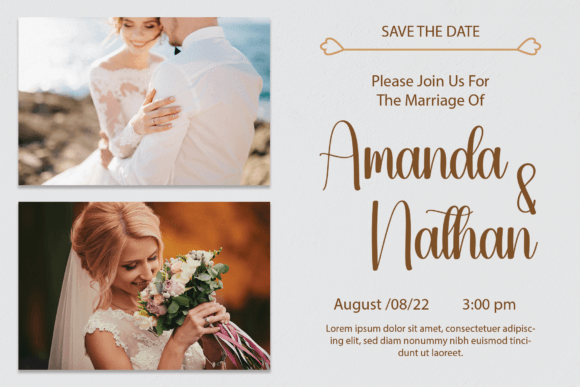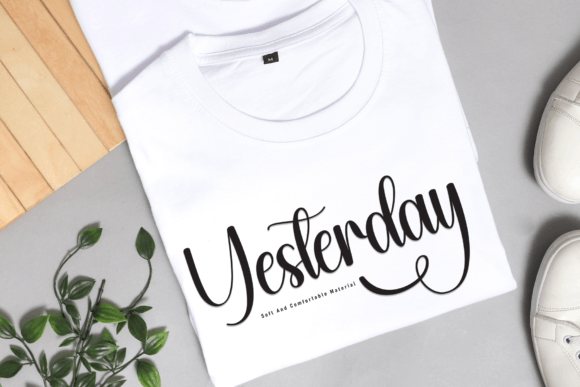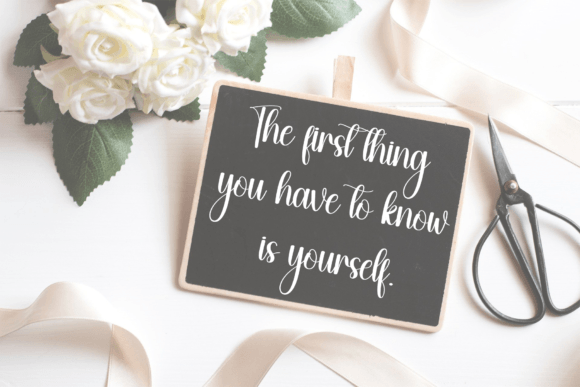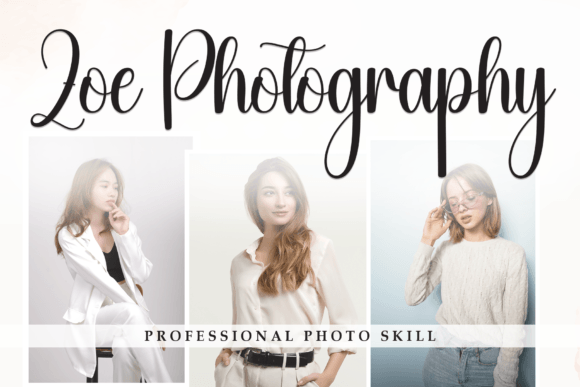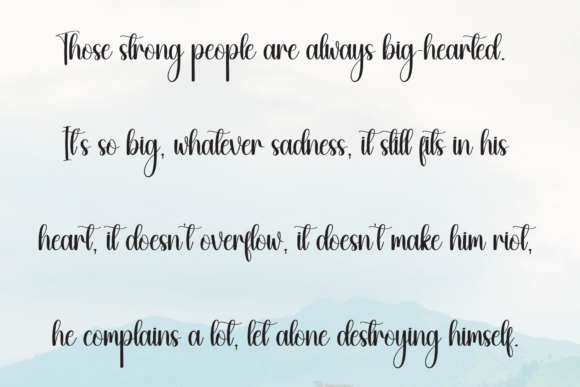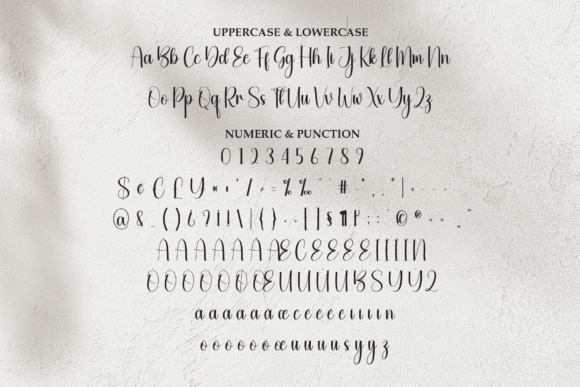
The Elusive Perfect Font: My Journey with “Enough”
I’ll never forget the frustration of working on a project, hours pouring over design elements, only to hit a roadblock: the perfect font. It was for a wedding invitation, and I wanted something that exuded elegance and simplicity. I scoured font libraries, tried out dozens of options, but nothing seemed quite right. That was until I stumbled upon “Enough”, a beautifully crafted handwritten font that checked all my boxes. In this article, I’ll share my experience with “Enough”, its features, and how to make the most of it in your designs.
First Impressions: What I Love About “Enough”
“Enough” is a gracefully crafted handwritten font that exudes sophistication and simplicity. Here are some of the things that make it stand out:
- ✨ Fluid strokes and delicate curves that add a touch of elegance to any project
- ✅ PUA encoded for easy access to amazing glyphs and ligatures
- 💫 Perfect for invitations, cards, or any design where a personal and refined touch is desired
- 🎨 Highly versatile and can be used for a wide range of creative projects
The Honest Review: Quirks and Limitations
While “Enough” is an exceptional font, there are a few quirks to be aware of:
- 🤔 Limited availability of certain characters, which may require some creative workarounds
- ⚠️ Not suitable for body text or long-form reading due to its elegant, yet delicate nature
The Story Behind “Enough”
While the origins of “Enough” are shrouded in mystery, it’s clear that the designer poured their heart and soul into crafting this beautiful font. Perhaps the designer was inspired by the fluid strokes of handwritten calligraphy, or the delicate curves of elegant typography. Whatever the inspiration, “Enough” is a testament to the power of thoughtful design.
| Is “Enough” suitable for body text? | No, “Enough” is best suited for headlines, titles, and short-form text due to its delicate nature. |